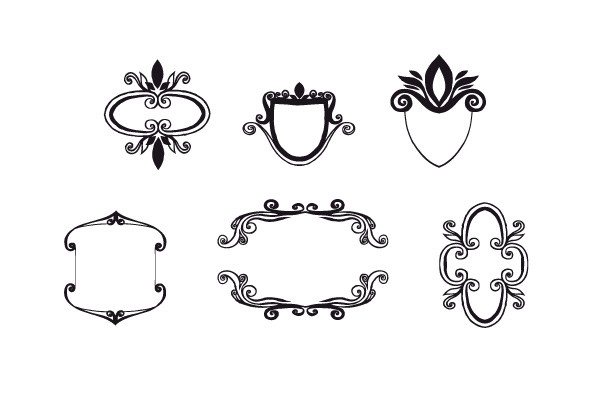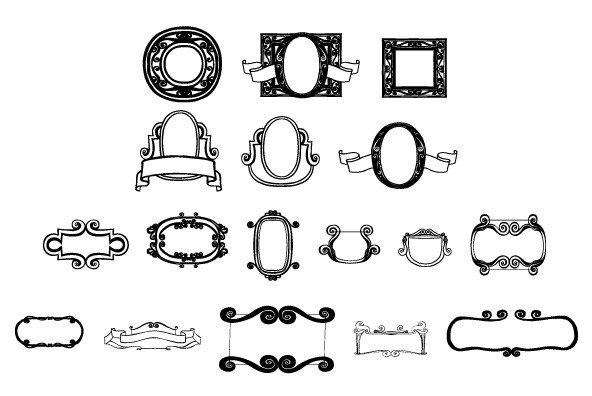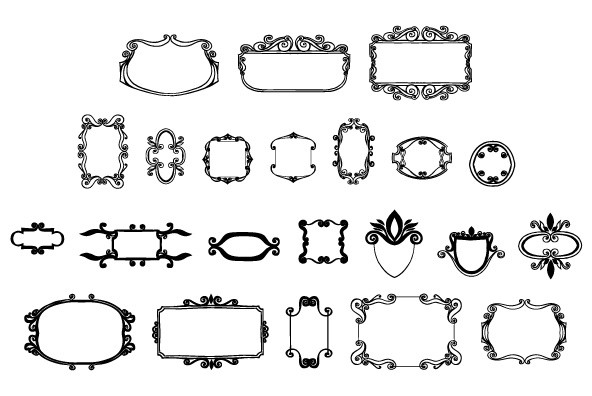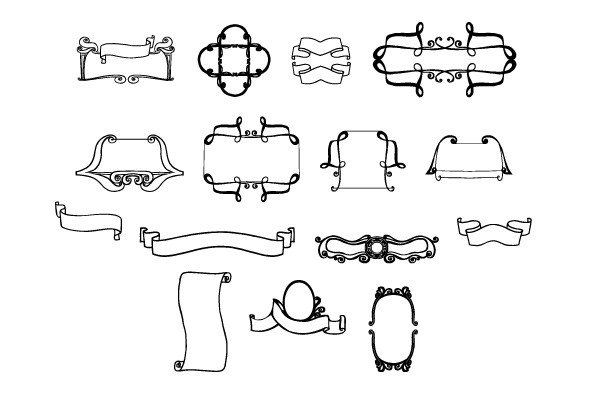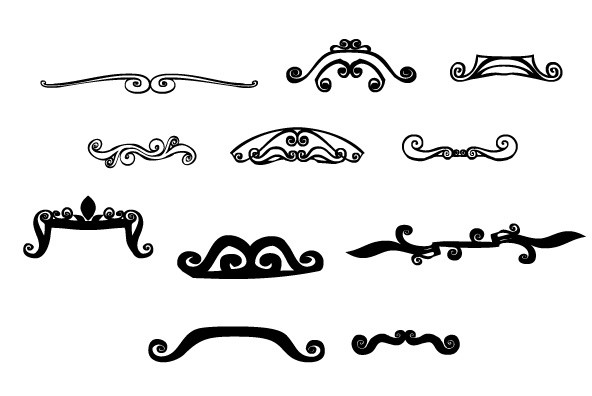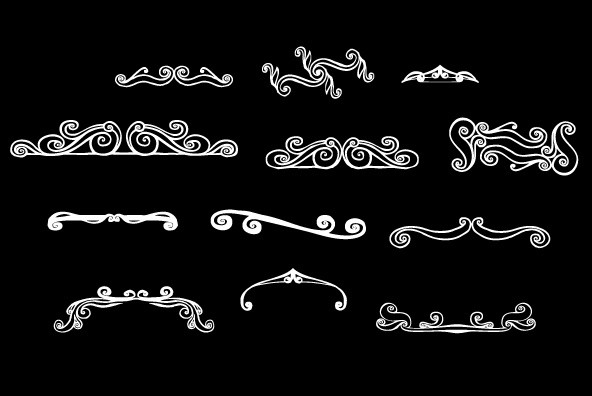
Blue Goblet Frames and Vignettes Two
The designer favorite Blue Goblet series has been extended once again with Blue Goblet Frames and Vignettes #2. These animated and lively frames and vignettes can be resized easily without any loss of quality, and can easily be converted to outlines and modified. Combining them to form unique compositions or inserting them into chapter headings are just a few ideas for these versatile ornaments.